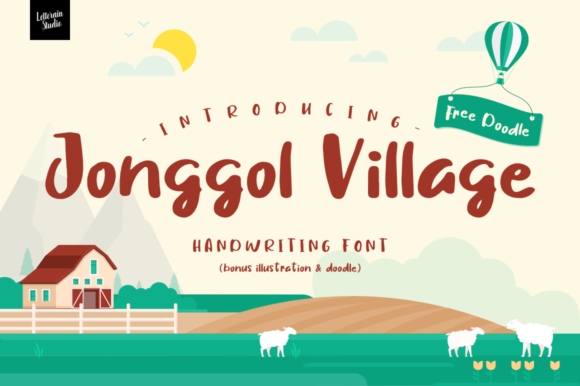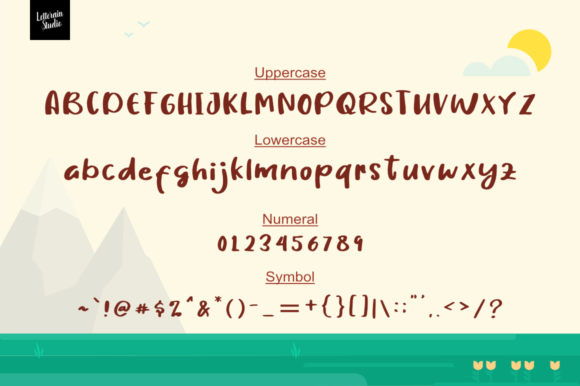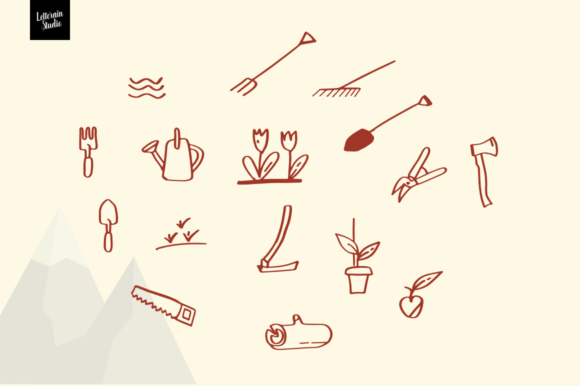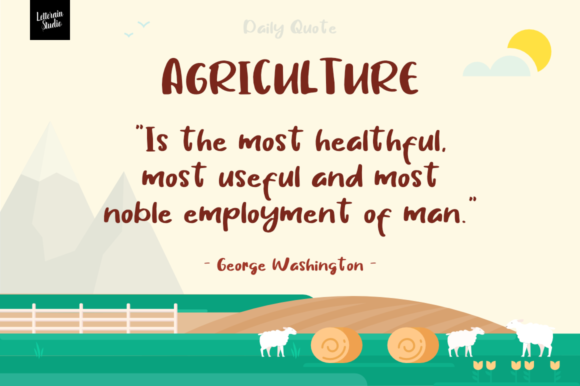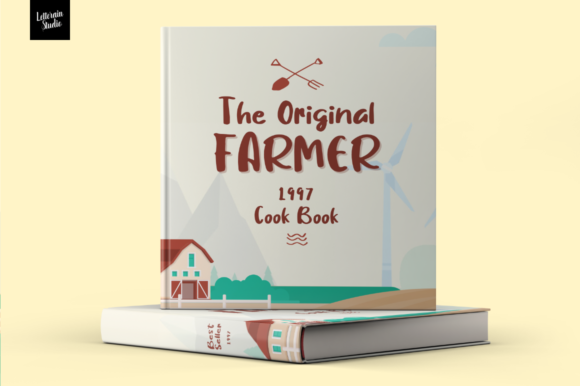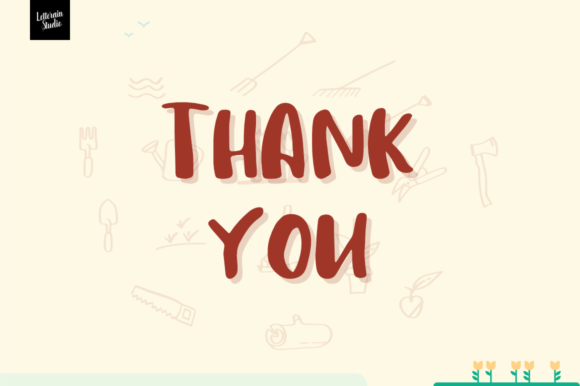
Jonggol Village Font
About Jonggol Village Font
Jonggol Village is a fun and unique handwriting font, full of natural charm! Fall in love with its light feel, and get inspired by the amazing illustrations that are included.